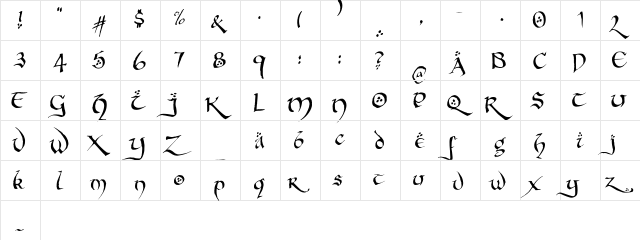
Hobbiton Brushhand Hobbiton brush
Design Context for Hobbiton Brushhand Typeface
Hobbiton Brushhand flows with the natural rhythm of handwritten lettering, making it ideal for designs that call for warmth and personal expression.
Font Pairing: Combine Hobbiton Brushhand with a simple geometric sans for maximum contrast — the tension between flowing curves and clean structure is a classic typographic pairing.
Pro Tip: Pair Hobbiton Brushhand with a clean sans-serif for supporting text. The contrast between fluid script and geometric structure creates an elegant typographic hierarchy.